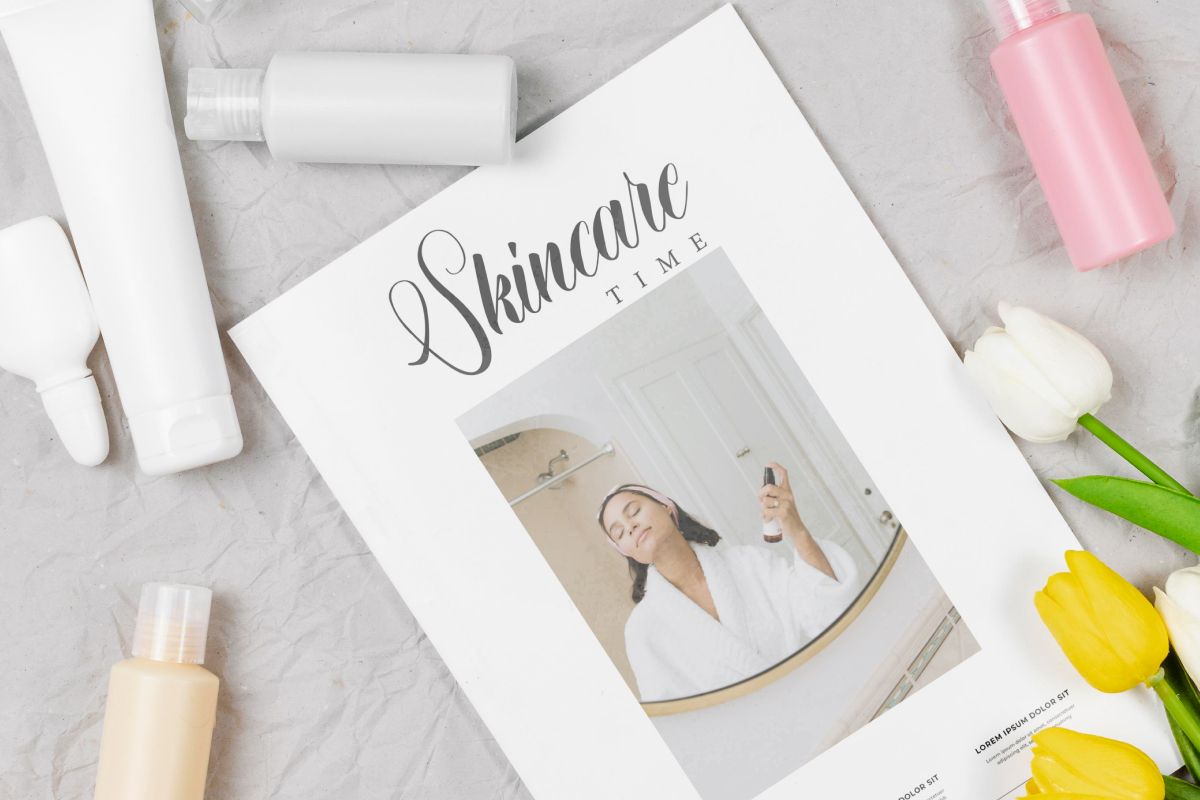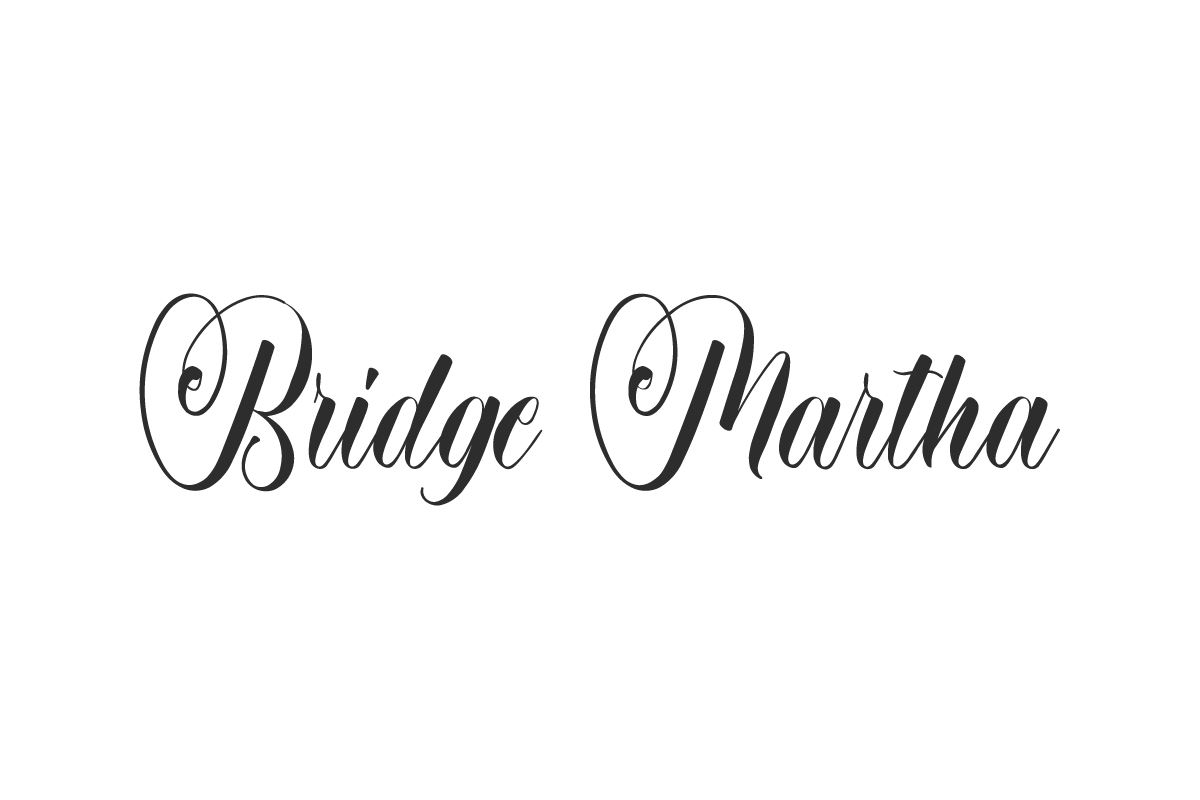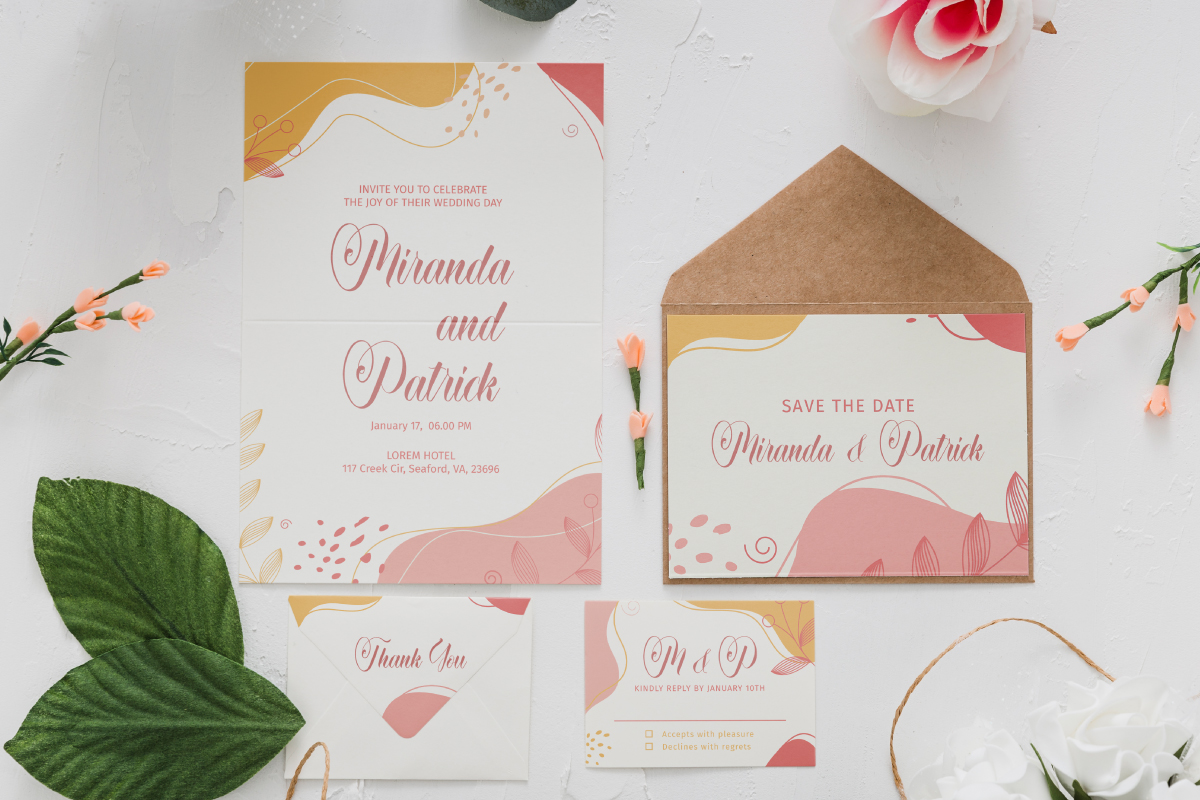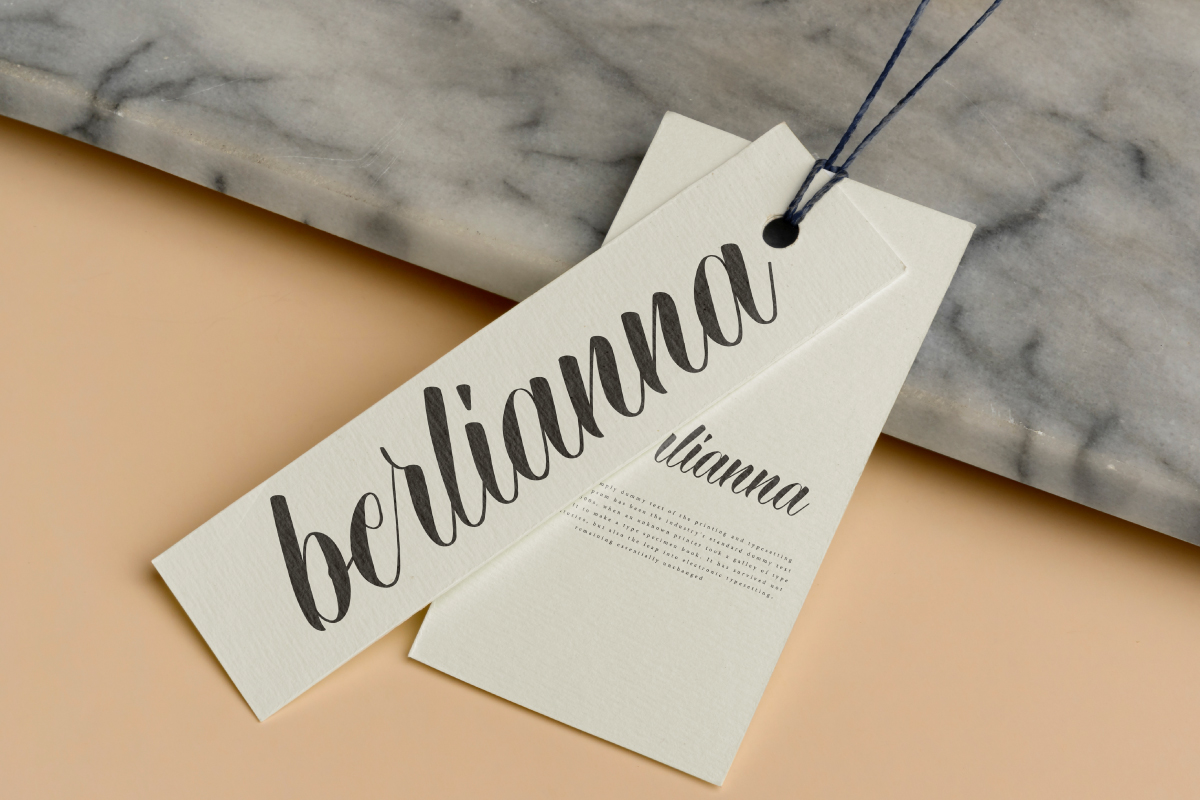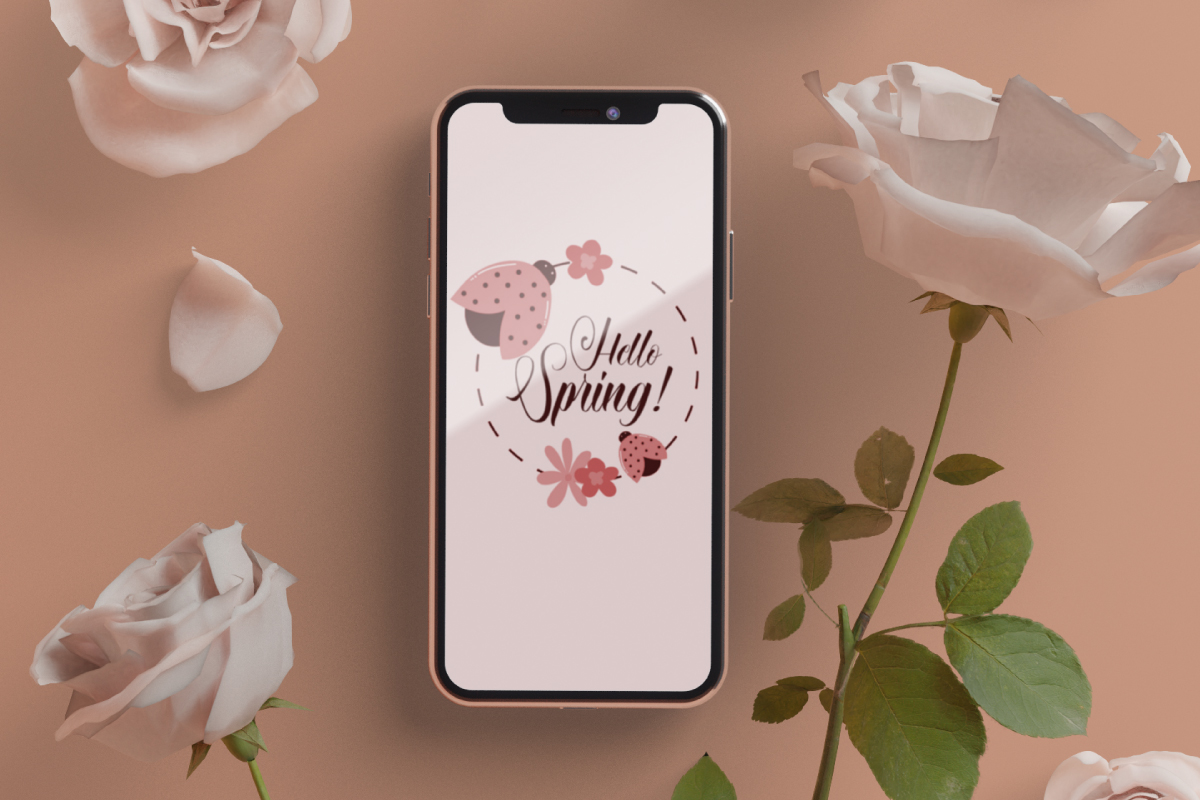
Bridge Martha Font
Bridge Martha Calligraphy Font is a stylish calligraphy style font with a beautiful curl brush. It exudes true elegance and easy to read that will add to the beauty of your designs, such as apps, brand logo, catalog, cover, invitation, label, quotes, stationery, title, website, and much more!